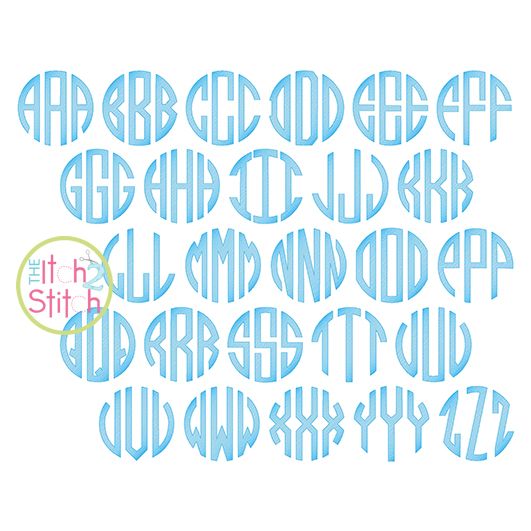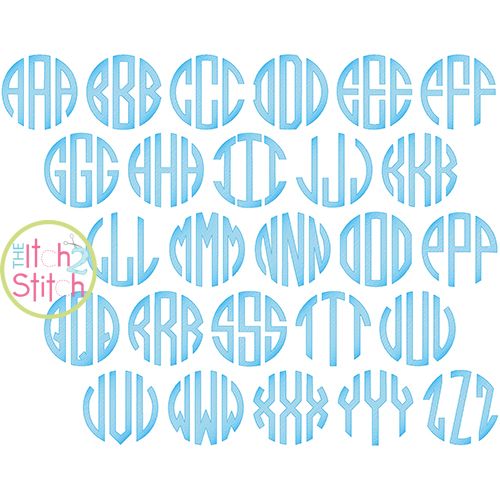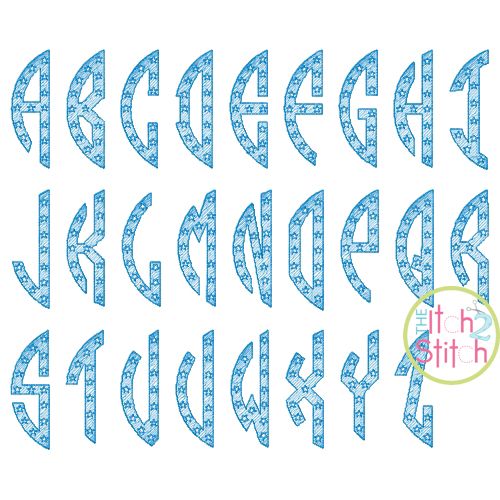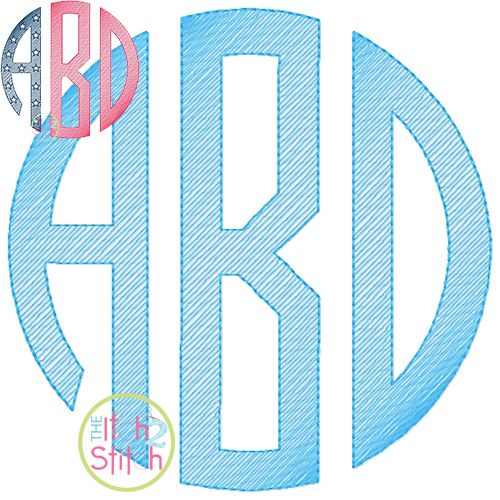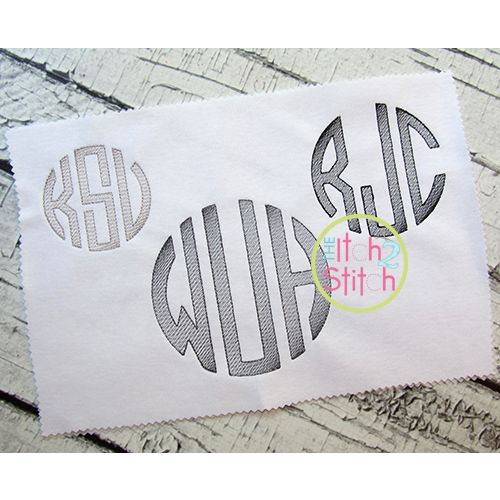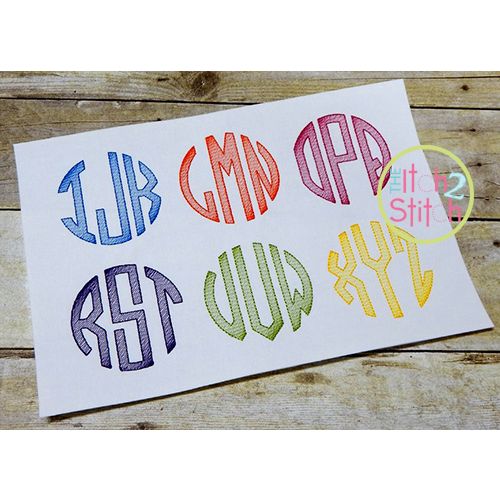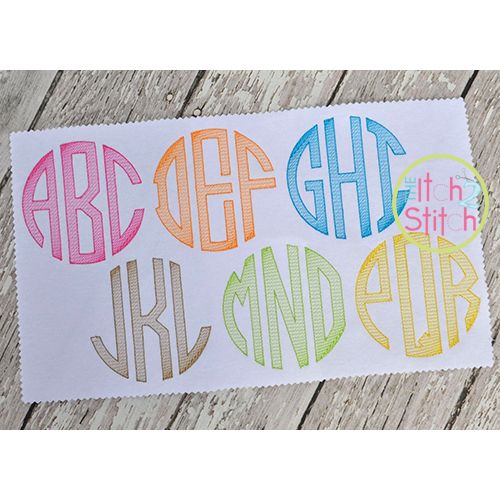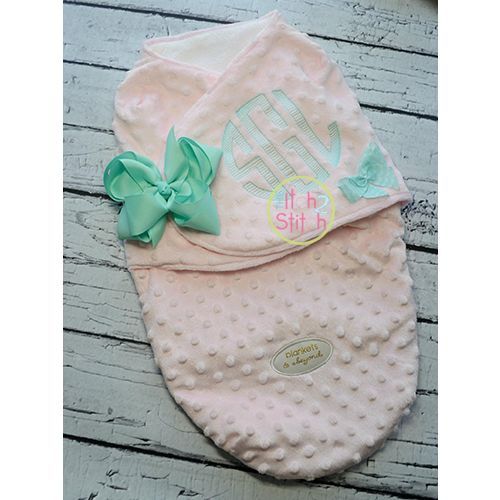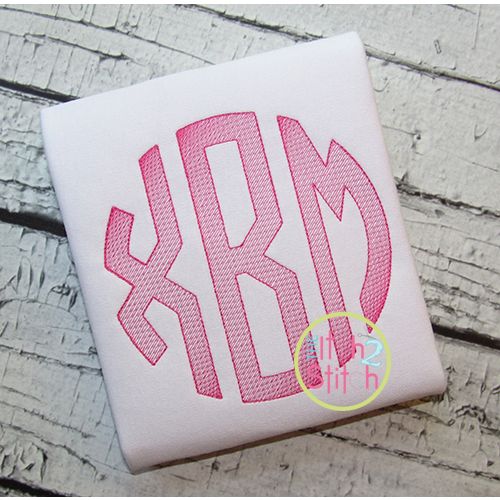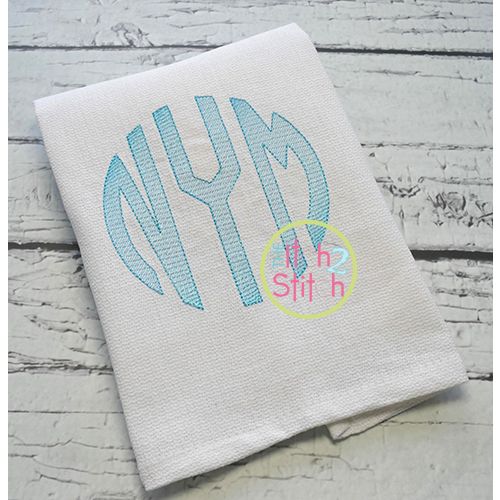
Natural Circle Sketch Monogram Embroidery Font
Please note this is not applique, nor is it a traditional satin or fill stitch font. The light and airy "sketch" fill pattern allows for a quick stitch out. The space between each line of stitching varies such that it is more dense at the upper left and lower right for each letter to create the shading effect. The letter is finished off with a triple bean stitch outline. Please refer to the close up image for details. We do NOT recommend resizing this font in software.